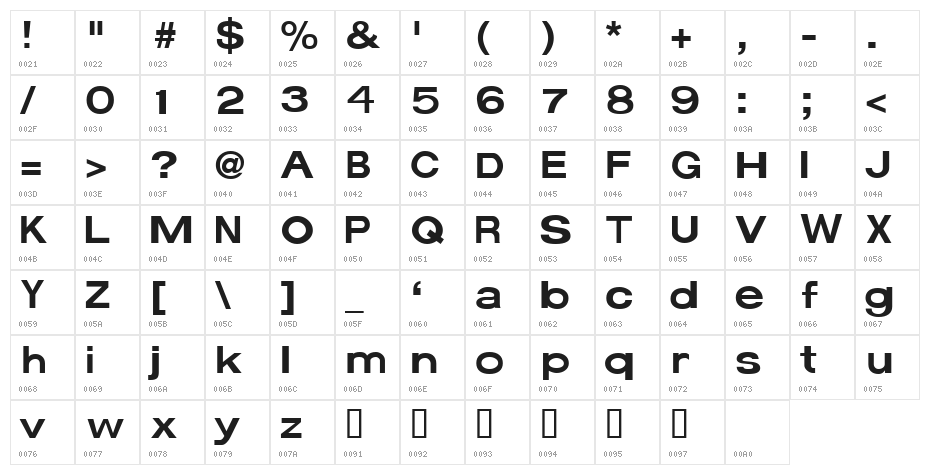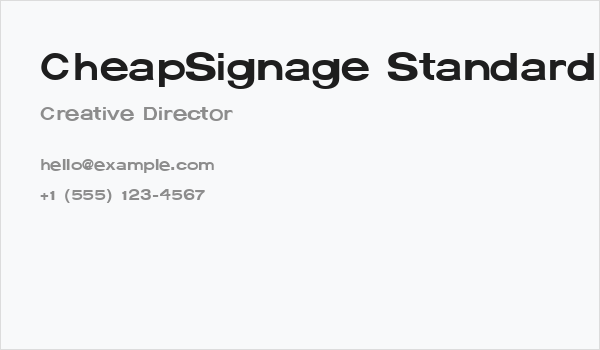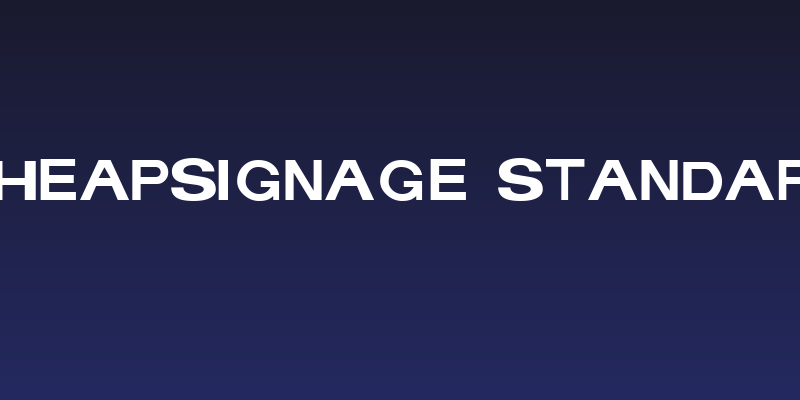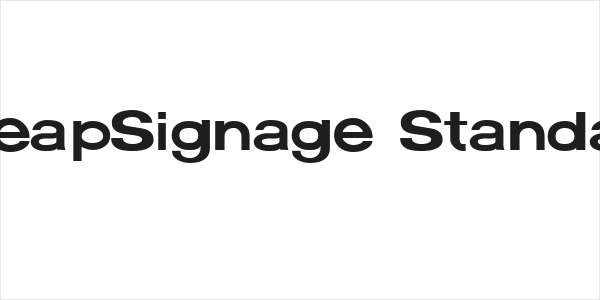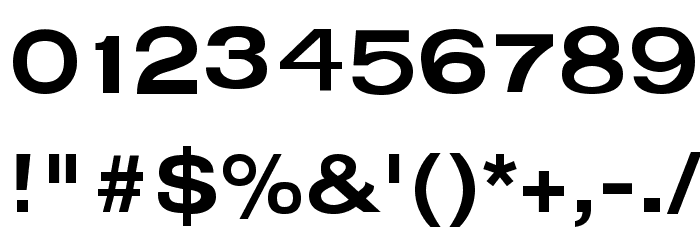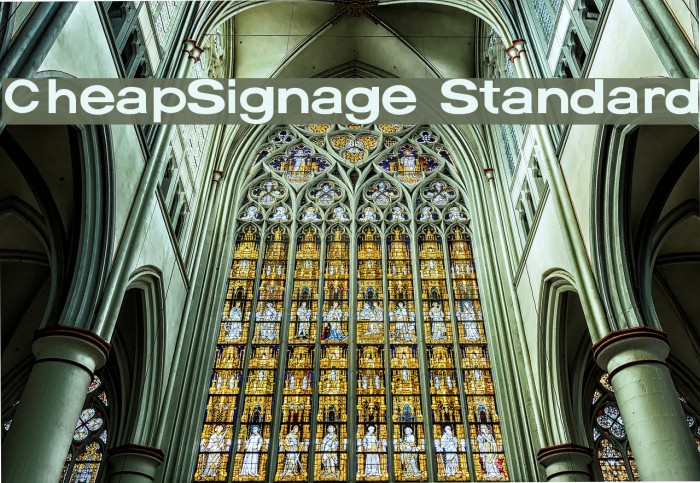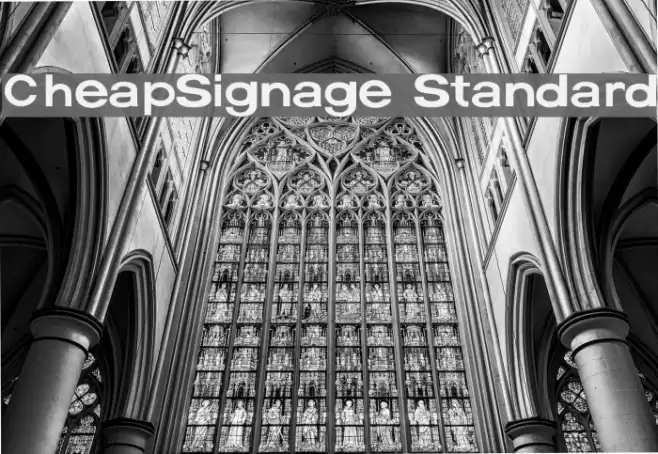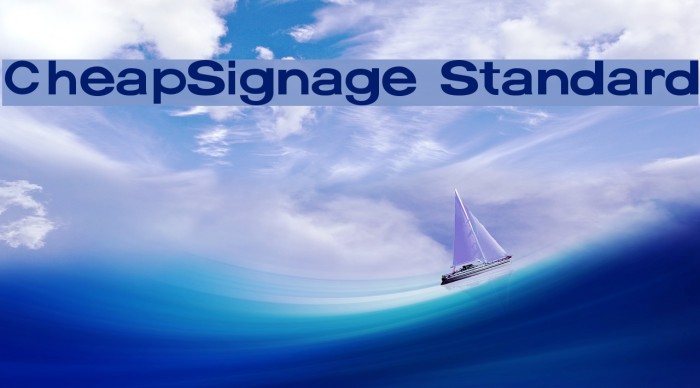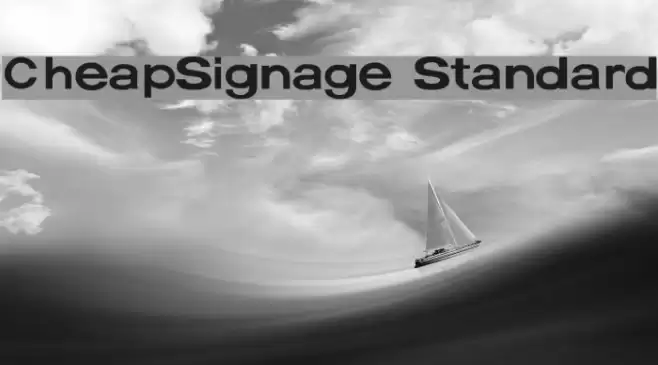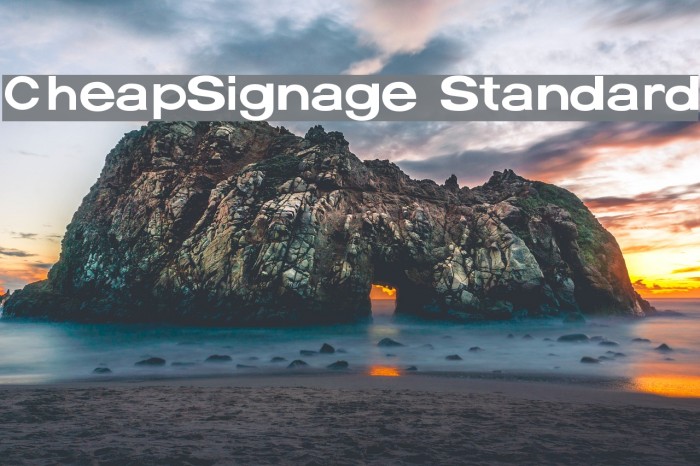
CheapSignage Standard Font
CheapSignage Standard Description
This font features a bold and modern sans-serif design, characterized by clean lines and a geometric structure. The uppercase and lowercase letters are well-balanced, with a uniform stroke width that gives it a strong and stable appearance. The numerals are clear and easy to read, making them suitable for various applications. Special characters are included, maintaining the same bold and straightforward style. The overall look is contemporary and professional, ideal for making a strong visual impact.
| Use Case | Headlines, Logos, Signage |
| Proposed Projects | Ideal for signage, branding, headlines, and digital media where clarity and impact are essential. |